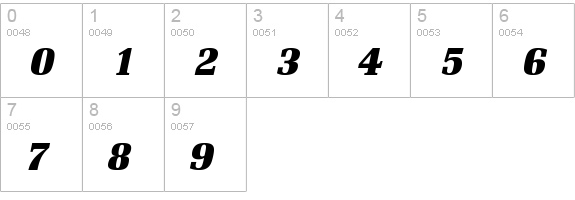
RenaultEF-BoldItalic Font Details
RenaultEF-BoldItalic is a striking and bold font that exudes confidence and elegance. Its italicized design adds a touch of sophistication and flair to any project. This font is perfect for creating eye-catching headlines, logos, and branding materials. With its strong and distinctive letterforms, RenaultEF-BoldItalic is sure to make a lasting impression. Its bold strokes and unique curves give it a modern and dynamic look, making it suitable for a wide range of design applications. One of the standout features of RenaultEF-BoldItalic is that it is available for free. In today's fast-paced and ever-evolving design landscape, finding high-quality fonts that are freely accessible can be a challenge. However, with RenaultEF-BoldItalic, designers and creatives can have access to a top-notch font without any cost. To download RenaultEF-BoldItalic, simply head over to FontsMarket.com, a reputable online platform for font enthusiasts. There, you can easily find and download this font, allowing you to incorporate it seamlessly into your design projects. Whether you are a professional designer or someone looking to add a touch of style to their personal creations, RenaultEF-BoldItalic is an excellent choice. Don't miss out on the opportunity to enhance your designs with this exceptional typeface. Download RenaultEF-BoldItalic today and experience the freedom and versatility it offers.